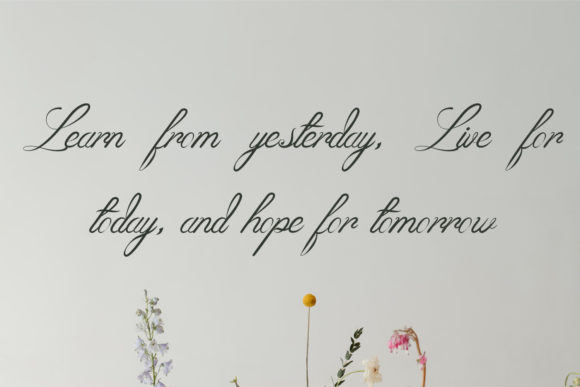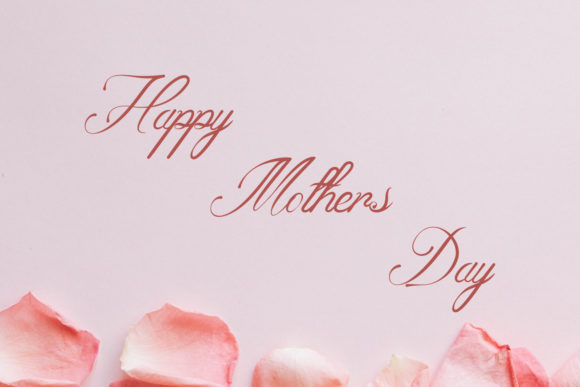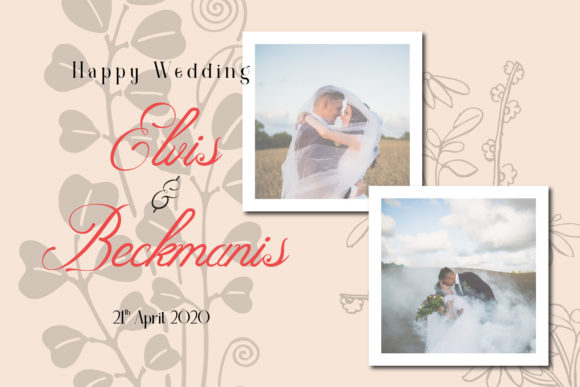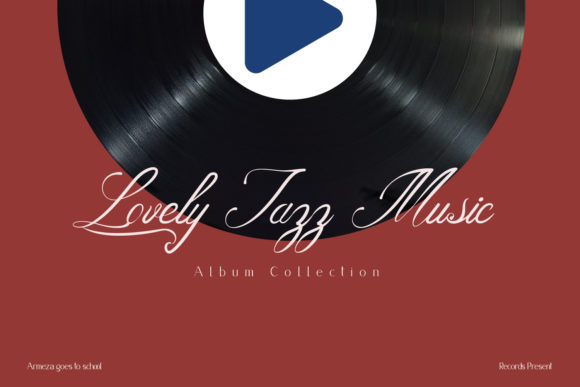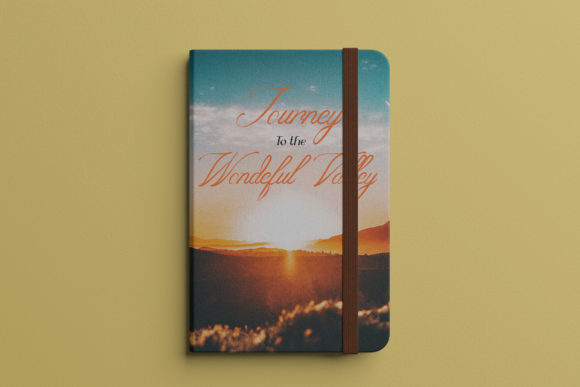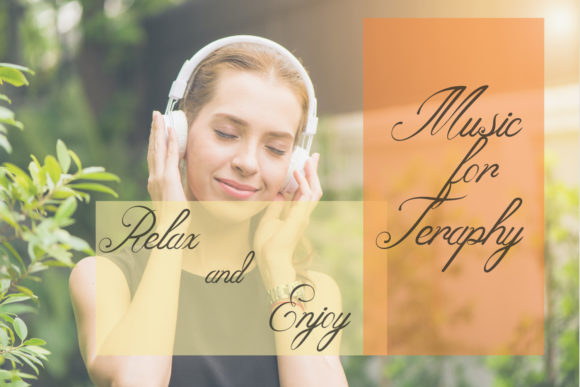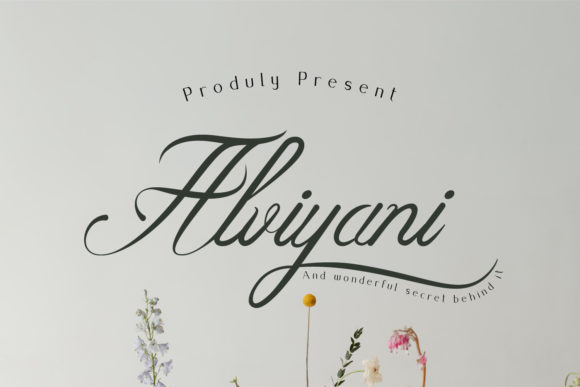
The Alviyani Font: Elevate Your Designs with Luxury and Elegance
An Honest Review of Alviyani Font
- ✨ Modern and elegant: Alviyani is a stunning handwritten font that exudes luxury and sophistication.
- ✅ PUA encoded: This means you can easily access all the amazing glyphs and ligatures, making it a breeze to create beautiful designs.
- 💫 Ravishing and unique: Alviyani has a distinct personality that will set your designs apart from the rest.
Now, I’m not going to sugarcoat it – every font has its quirks. Here are a few things to keep in mind:
- 🤔 Limited use in body text: While Alviyani is gorgeous, it’s best used for headlines, titles, or short paragraphs. It might not be the most readable font for longer texts.
The Story Behind Alviyani Font
While I couldn’t find any information on the exact designer behind Alviyani, it’s clear that this font was crafted with love and attention to detail. The creator likely drew inspiration from modern calligraphy and elegant handwriting, resulting in a font that’s both sophisticated and unique.
| Font Name | Alviyani Font |
| What is PUA encoding, and why is it important? | PUA (Private Use Area) encoding allows designers to access a wide range of glyphs and ligatures, making it easier to create beautiful and unique designs. |
| Is Alviyani suitable for body text? | While Alviyani is gorgeous, it’s best used for headlines, titles, or short paragraphs. For longer texts, you might want to choose a more readable font. |